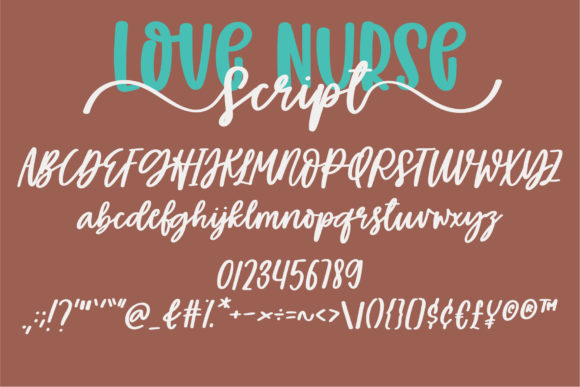
Love Nurse Font
db-ku.com - Script & Handwritten -- Love Nurse is a duo-styled handwritten and serif font that feels equally charming and delicate. Use it for your most complex creations that need both a natural touch and a friendly appearance!